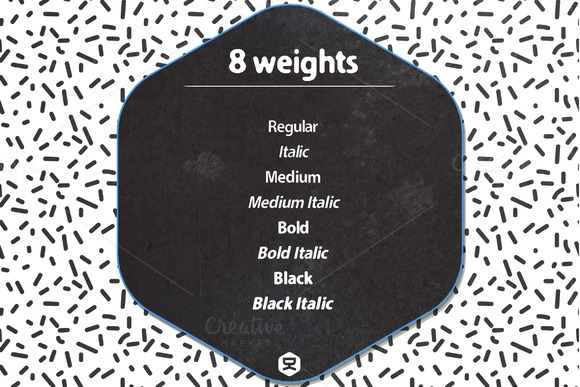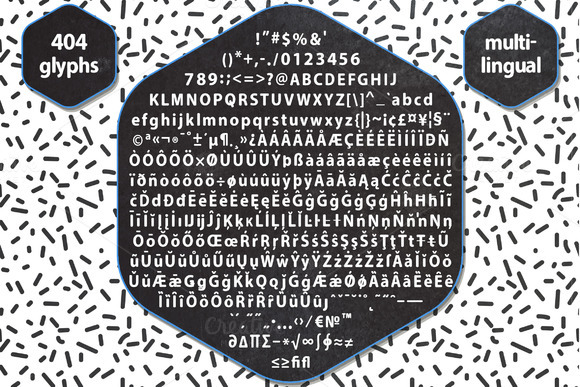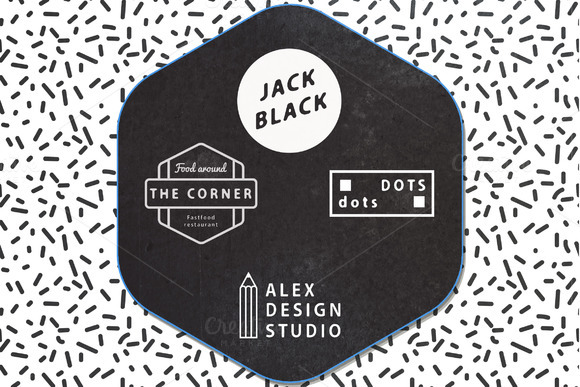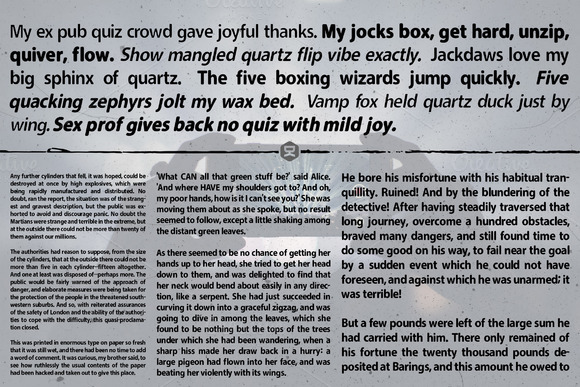
Introducing Carson Font: The Modern Sans Serif for Creative Projects
In the world of typography, a font can make all the difference in the success of a design project. Whether you’re a seasoned designer or a crafty DIY enthusiast, finding the right font can elevate your work from ordinary to extraordinary. That’s where Carson Font comes in – a modern, robust, and slightly rounded sans serif font that’s perfect for a wide range of creative applications.
What is Carson Font?
Carson Font is a versatile and stylish sans serif font that’s designed to look great in all sizes. Its modern and robust design makes it an excellent choice for various purposes, including headings, logos, invitations, t-shirt designs, greeting cards, posters, labels, book covers, brochures, and much more. The font’s slightly rounded edges give it a friendly and approachable feel, making it perfect for designs that require a touch of personality.
Key Features of Carson Font
- Modern and Robust Design: Carson Font boasts a sleek and contemporary design that’s perfect for creating eye-catching headlines and titles.
- Slightly Rounded Edges: The font’s subtle rounded edges add a touch of warmth and friendliness to your designs.
- Versatile and Adaptable: Carson Font can be used for a wide range of applications, from digital designs to print materials.
- Scalable: The font looks great in all sizes, making it perfect for use in various contexts.
Use Cases for Carson Font
Carson Font’s versatility makes it an excellent choice for various design projects. Here are some use cases to get you started:
- Headings and Titles: Use Carson Font to create bold and eye-catching headings and titles for your blog posts, articles, and website content.
- Logo Design: The font’s modern and robust design makes it perfect for creating professional-looking logos for your brand or business.
- Invitations and Greeting Cards: Add a touch of elegance and sophistication to your invitations and greeting cards with Carson Font.
- T-Shirt Designs: Create stylish and trendy t-shirt designs using Carson Font.
- Posters and Flyers: Use the font to create eye-catching posters and flyers for your events, promotions, or products.
- Book Covers and Brochures: Carson Font is an excellent choice for book covers, brochures, and other print materials that require a modern and professional look.
Why Choose Carson Font?
With so many fonts available, why choose Carson Font? Here are a few reasons why designers and crafters love this font:
- Unique and Distinctive: Carson Font’s slightly rounded edges and modern design make it stand out from other sans serif fonts.
- Easy to Read: The font’s clear and clean design ensures that your text is easy to read, even at small sizes.
- Highly Versatile: Carson Font can be used for a wide range of applications, making it a great addition to your font library.
In conclusion, Carson Font is an excellent choice for designers and crafters looking for a modern, robust, and versatile sans serif font. Its slightly rounded edges and clean design make it perfect for a wide range of creative projects, from headings and titles to logos, invitations, and more. With its ease of use and high versatility, Carson Font is sure to become a staple in your font library.